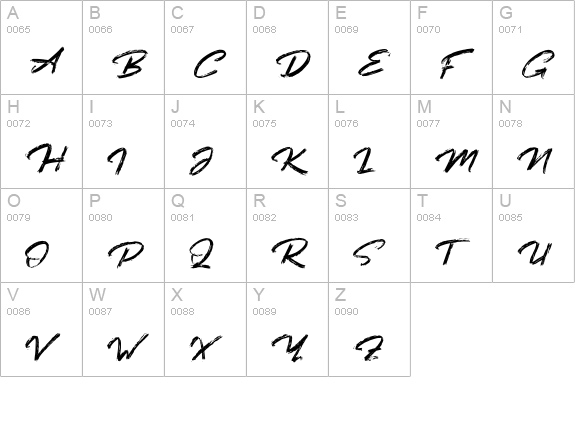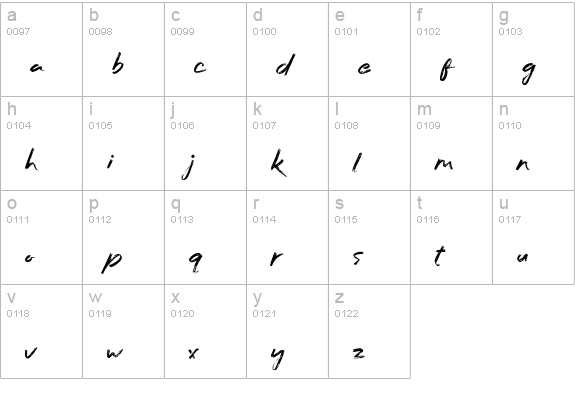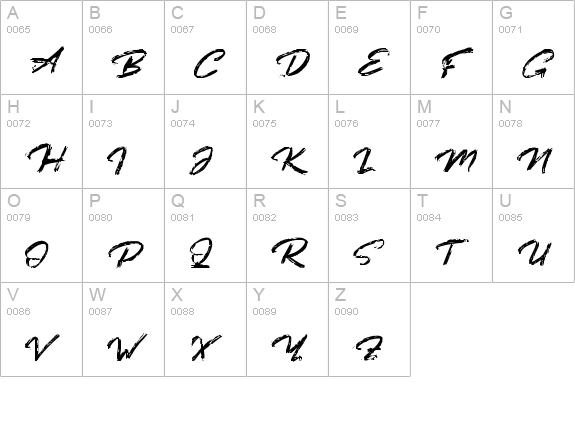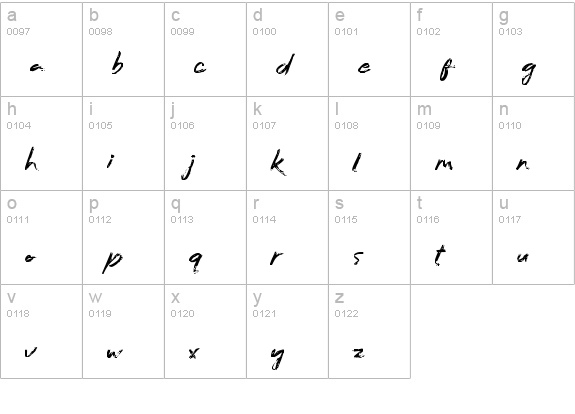
bafora Font Details
bafora is a demo font in the Fancy > Distorted category, designed by craftsupplyco. It has been downloaded 14 times and is available for Windows, Mac and Linux.
Introducing Bafora Font, a versatile and elegant typeface that exudes sophistication and modernity. With its sleek lines and stylish curves, Bafora Font is perfect for a wide range of design projects, from branding and advertising to packaging and web design. This versatile font is sure to make your text stand out and leave a lasting impression.